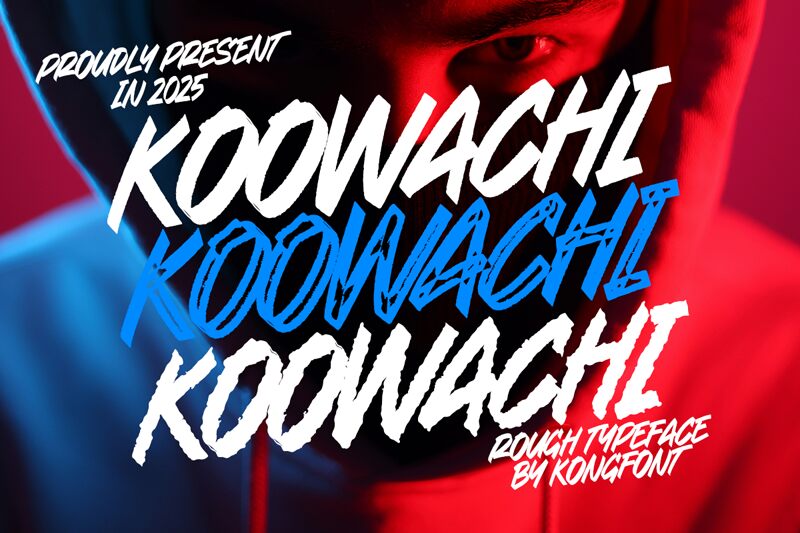
Koowachi font by Kong Font is a free brush font inspired by modern typography styles. The natural, handmade font has a unique appearance and flow, with all its natural imperfections and textures. Irregularities give Koowachi a distinctive contemporary look that stands out; a feature that a slick digital display font won’t give. This script has its own personality and character that comes through in its visual impression.
Designers can use this display font in branding, signage, and logo creation. Entertainment and art design projects like theater posters, event tickets, and more are also other suitable uses. Business cards and invitations, prints and digital content can be taken up a notch and generate more audience interest with Koowachi!